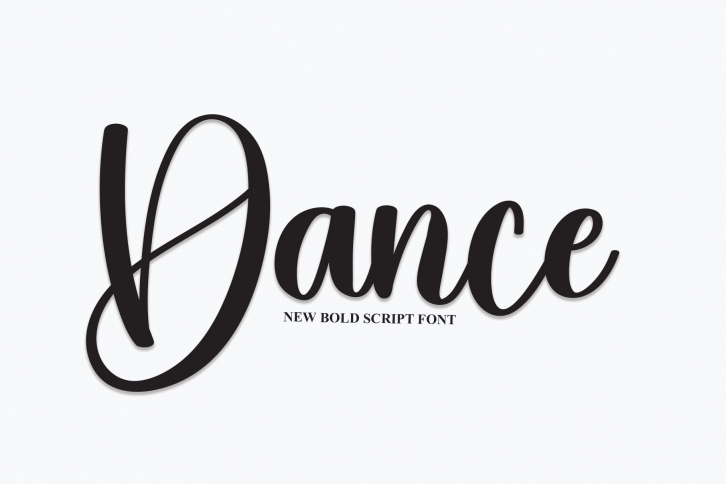
Dance is a trendy and unique font with an authentic style. It was designed by Scratchones and it's a great choice for creative people who need such a font. It was released on November 19, 2022 and the file size is 3.62 MB. Dance will add an organic vibe to any design idea!